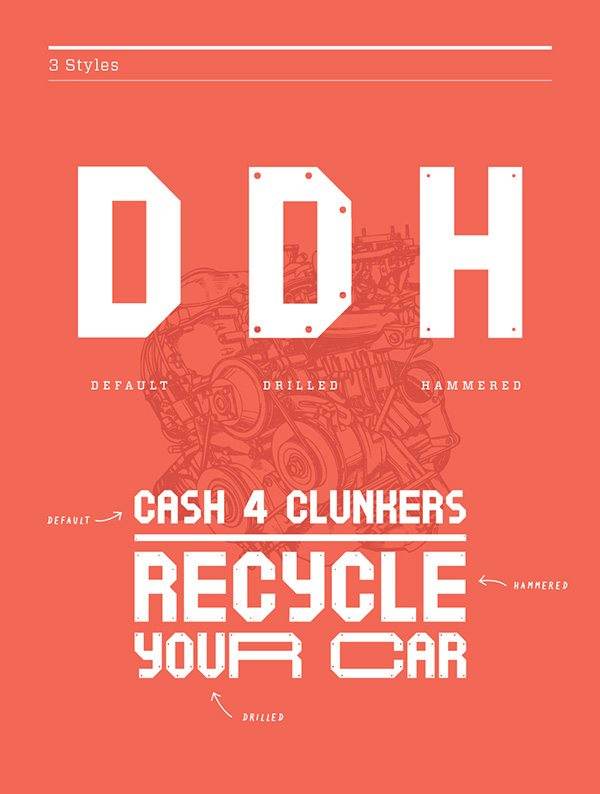
Motorless
The Font is a three styles display typeface inspired by good ol’ clunkers, wrecking yards, oil and dirt. The Font is rickety and inperfect. That’s why is free. The Font is designed by Fabien Laborie.